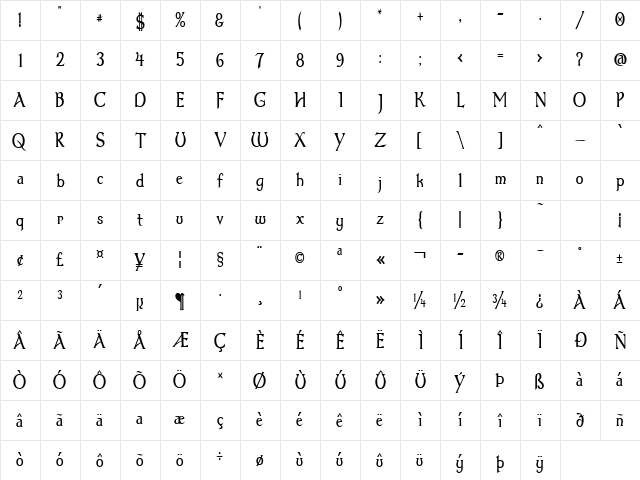
Dumbledor 1 Thin Regular
Design Context for Dumbledor 1 Thin
Dumbledor 1 Thin is a composed and adaptable typeface that performs quietly and consistently across a wide range of design contexts. Its slender proportions lend an understated elegance to any composition.